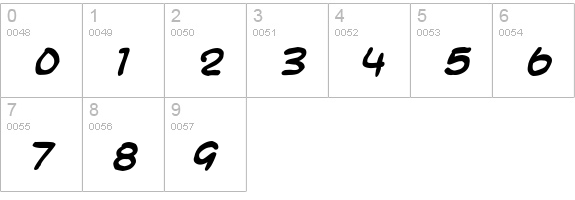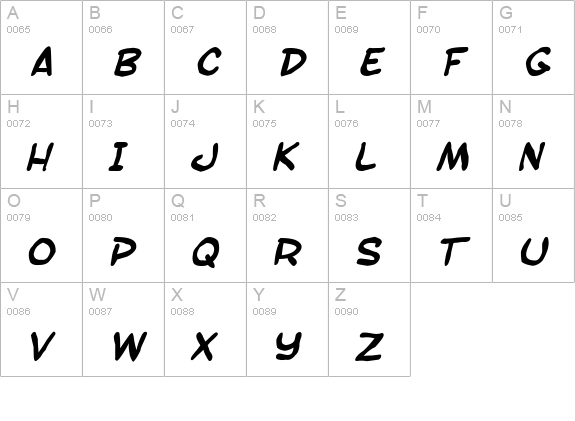
SF Toontime Blotch Bold Italic Font Details
SF Toontime Blotch Bold Italic is a strong, high-contrast, italic variant in the SF typeface family \xE2\x80\x94 well suited to headlines, attention-grabbing titles, and strong calls-to-action.
SF Toontime Blotch Bold Italic is a captivating and whimsical font that brings an element of fun and playfulness to any design project. With its unique blend of boldness and italics, this font is perfect for making a bold statement or adding a touch of excitement to your creative endeavors. The letters of SF Toontime Blotch Bold Italic appear as if they were hand-drawn, with each stroke showcasing a playful and slightly messy texture. This font exudes a sense of childlike joy and creativity, making it an excellent choice for designs aimed at a younger audience or projects that require a lighthearted and cheerful touch. Whether you're creating posters, advertisements, children's books, or any other design that calls for a dash of playfulness, SF Toontime Blotch Bold Italic is sure to deliver. Its bold and italicized form adds a dynamic quality to your text, instantly capturing attention and creating visual interest. The irregularities in the letterforms give the font a unique and organic feel, making it stand out from more traditional and uniform fonts. The best part is that SF Toontime Blotch Bold Italic is absolutely free! You can freely download this delightful font at FontsMarket.com. This means that you can add a touch of whimsy to your designs without breaking the bank. Whether you're a professional designer or a hobbyist, this font is a fantastic addition to your collection and will elevate your creations to new levels of creativity and charm. So why wait? Download SF Toontime Blotch Bold Italic today and let your imagination run wild with all the possibilities this font has to offer. With its playful and eye-catching design, this font is sure to bring a smile to your face and captivate your audience. Don't miss out on the opportunity to incorporate this fantastic font in your next design project. Get it now for free at FontsMarket.com and let your creativity shine!